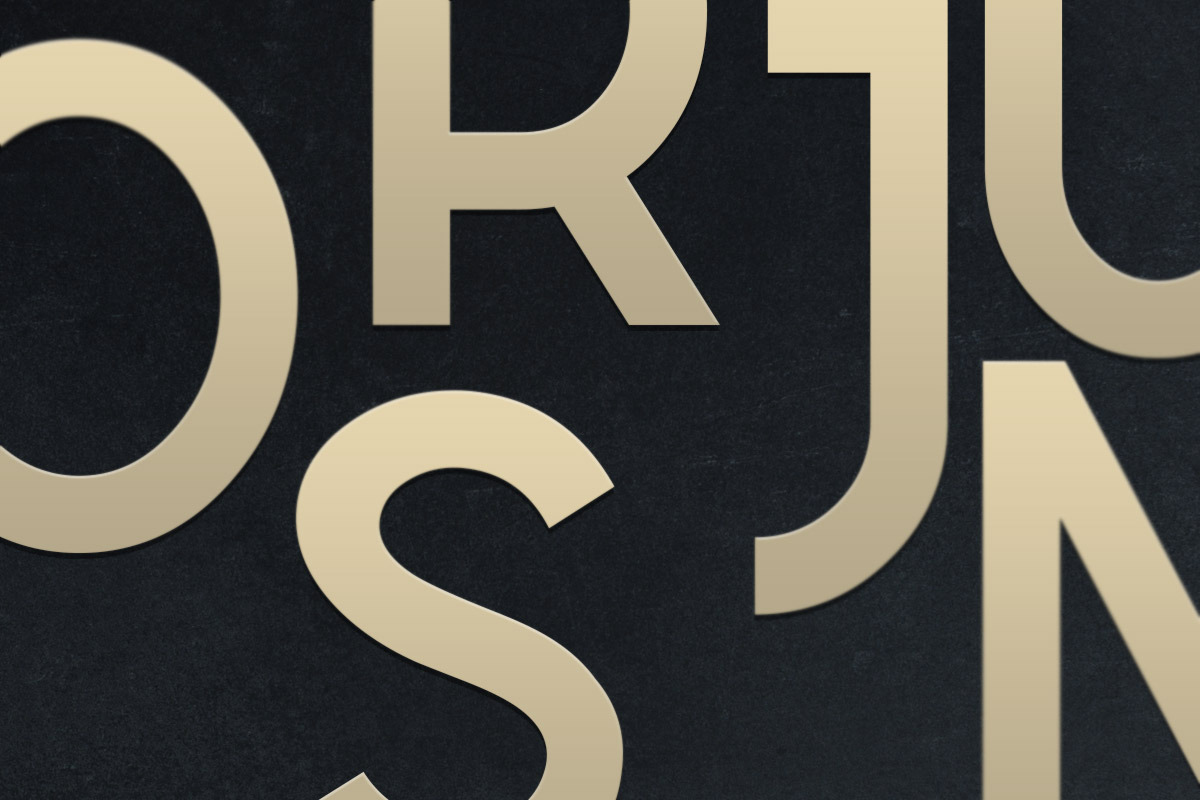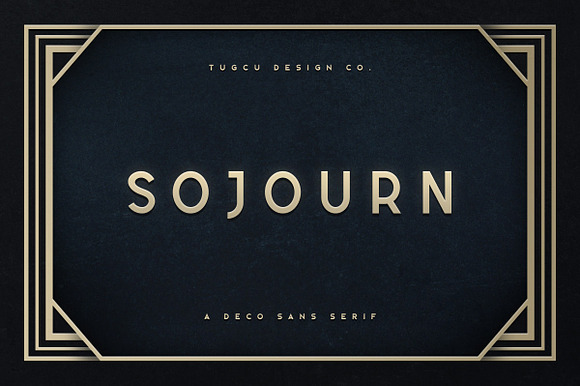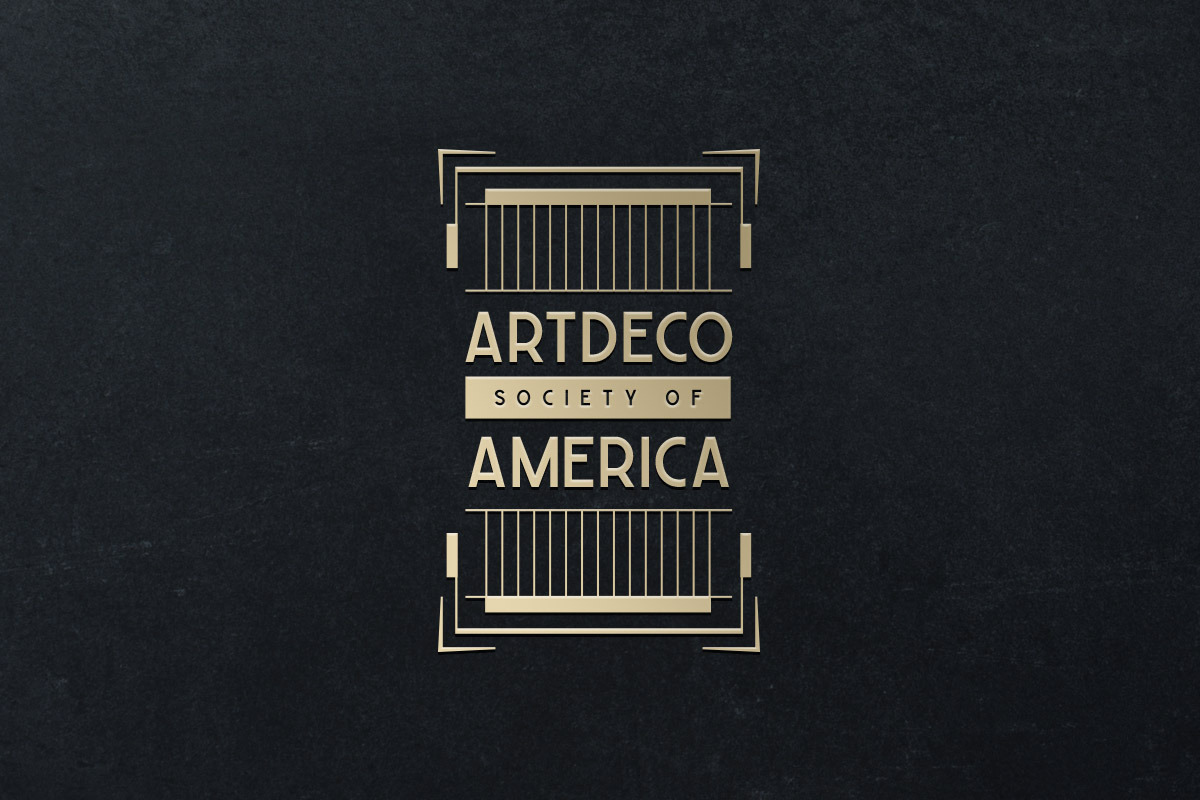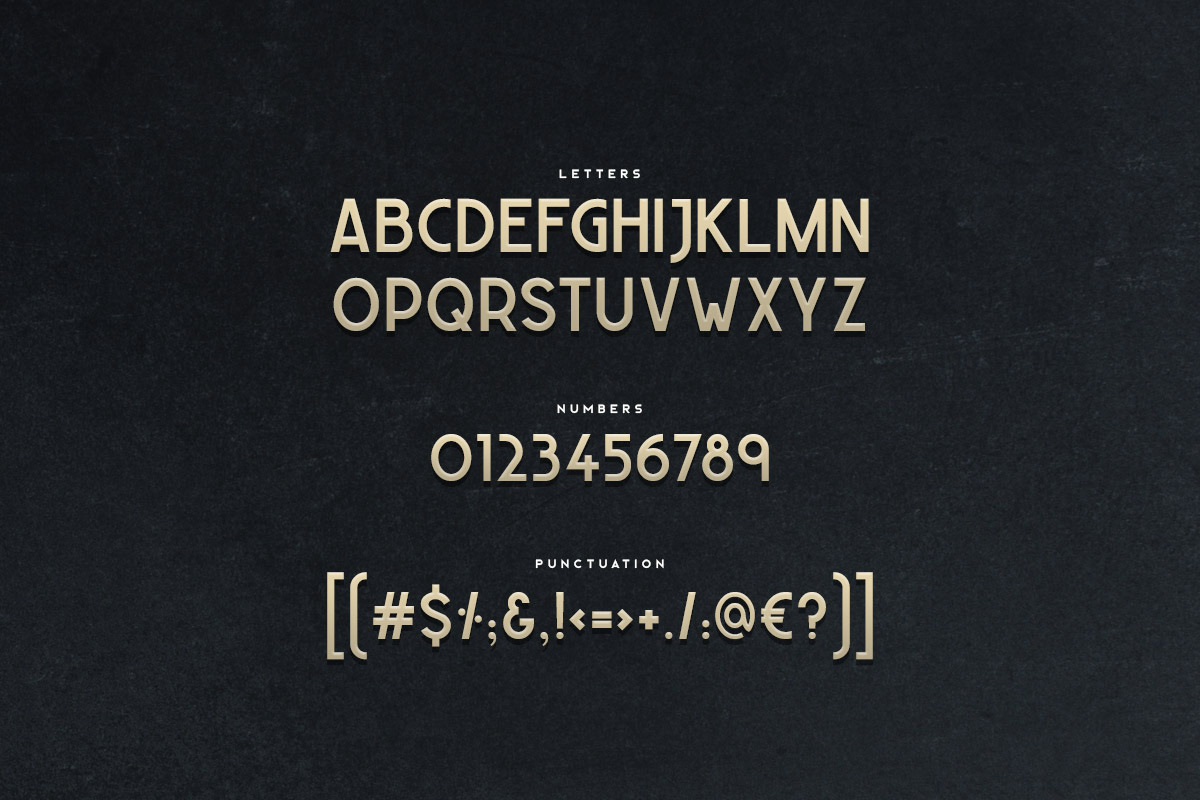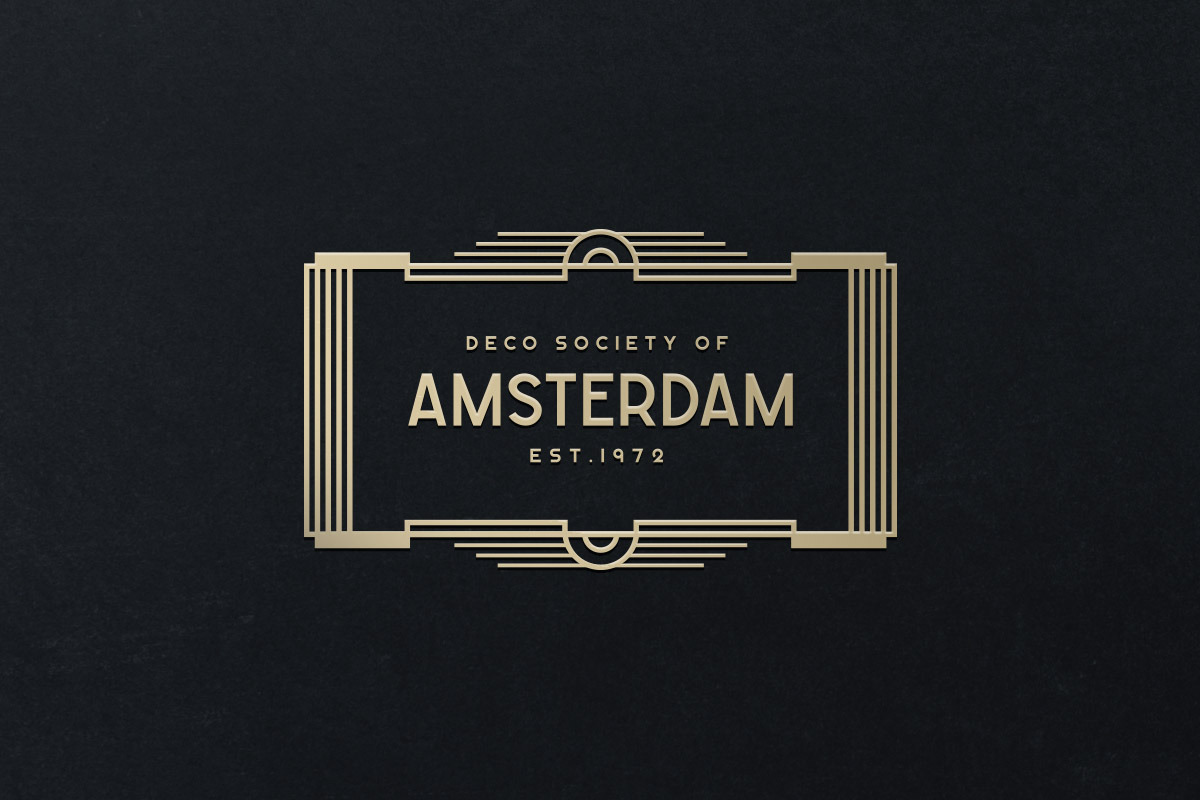
Sojourn Typeface
Sojourn is an art deco display font with uppercase multilingual letters, numbers and punctuation. Webfont version is also included.
- Sojourn is an art deco display font with uppercase multilingual letters, numbers and punctuation.
Why Sojourn Typeface is worth a look
Sojourn Typeface by Tugcu Design Co. fits naturally into Branding, posters, packaging, typography.